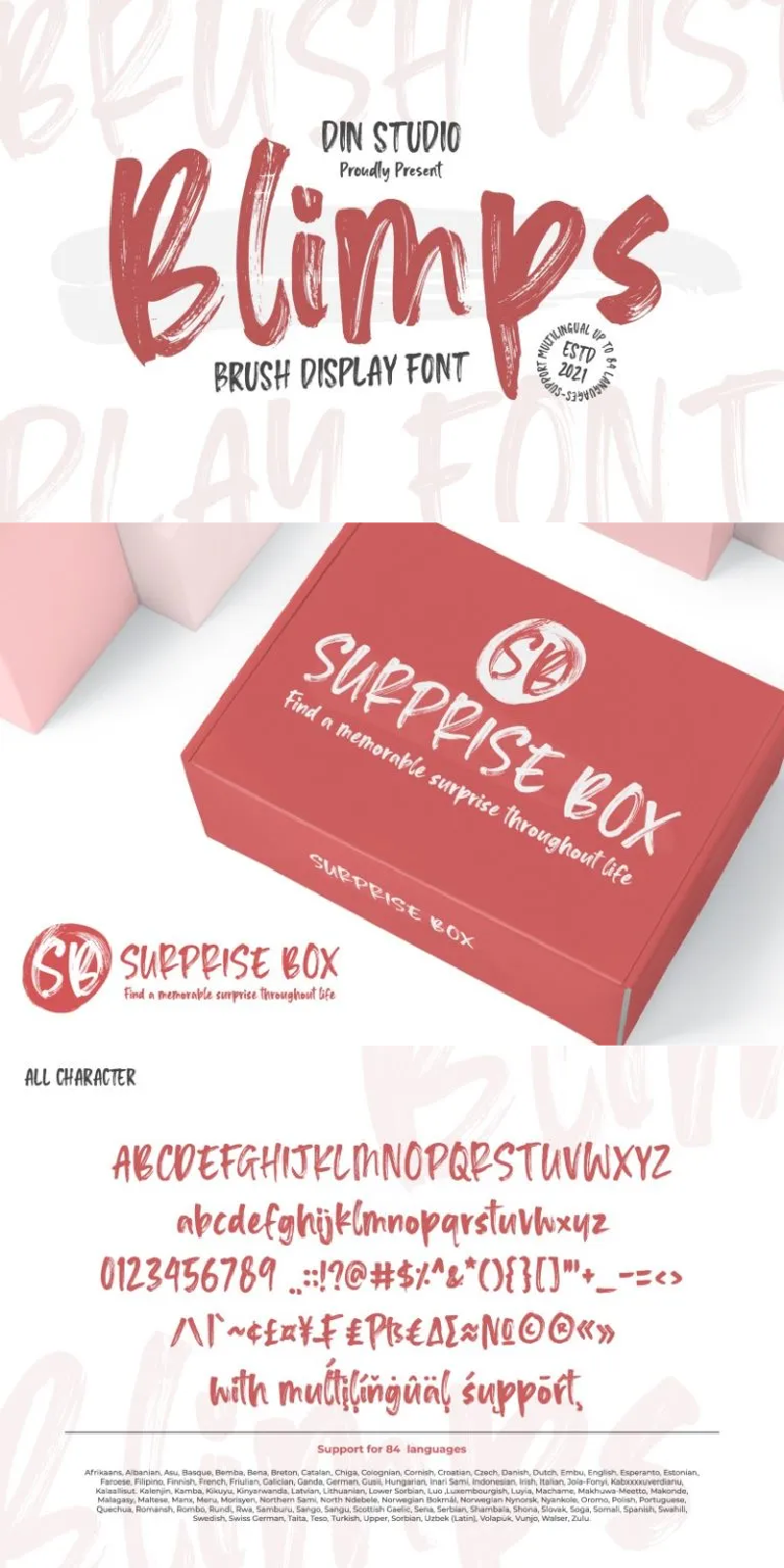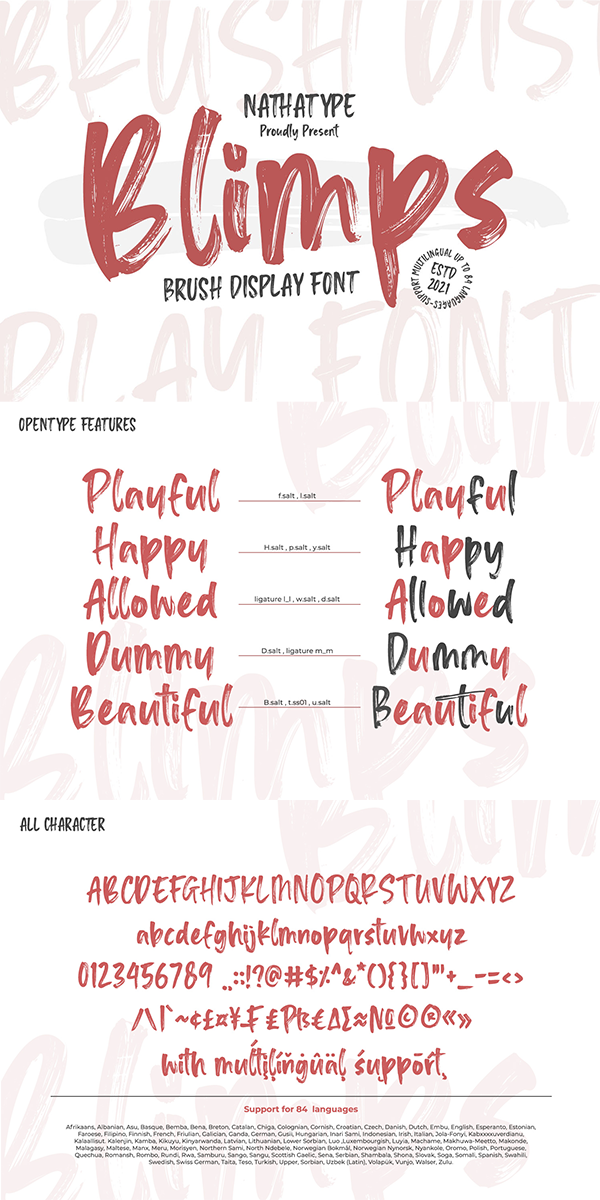
Blimps Font
About Blimps
Blimps is a fantastic font. It is a display font combined from handcrafted script brush font. This is designed primarily as a captivating font to add the right amount of modernity and style. This font is an excellent choice to ensure a great font matching your designs and projects! It is well suited to titles, poster designs, branding, logos, etc.
Our font always includes Multilingual Support to make your branding reach a global audience. See the previews above to get to know how to use them. Happy designing!